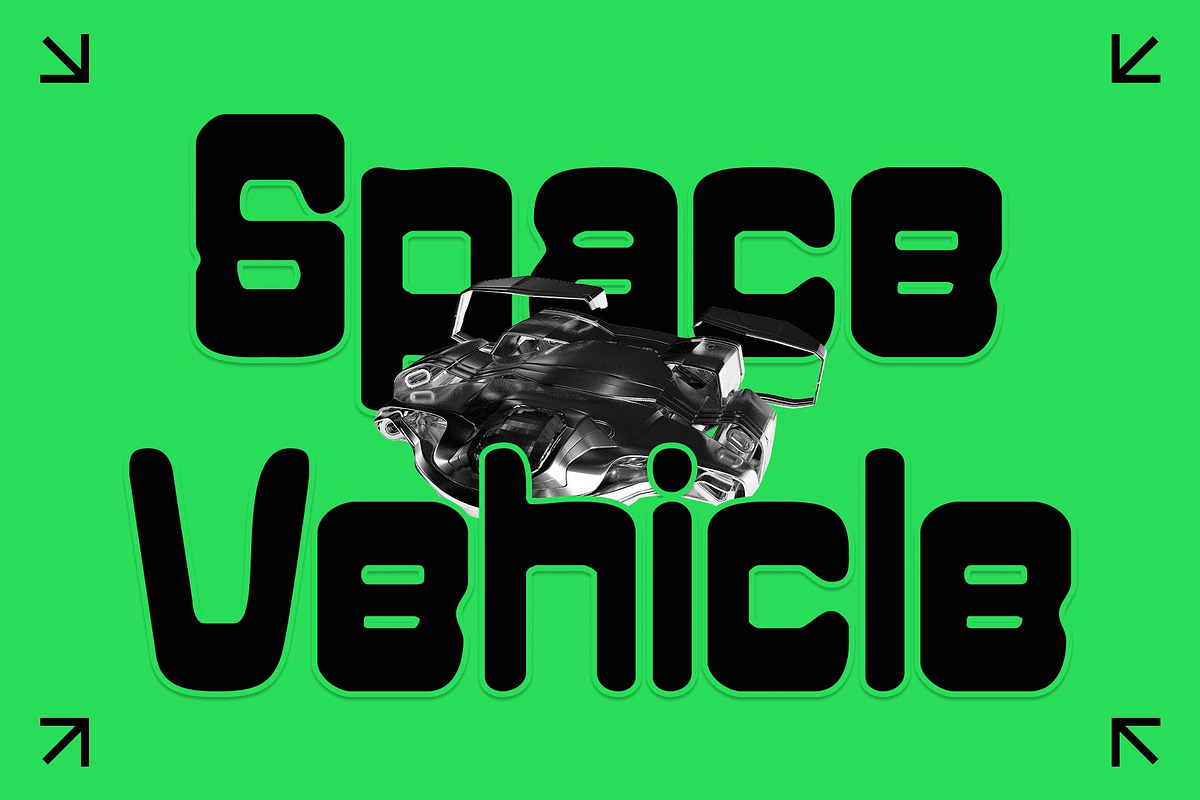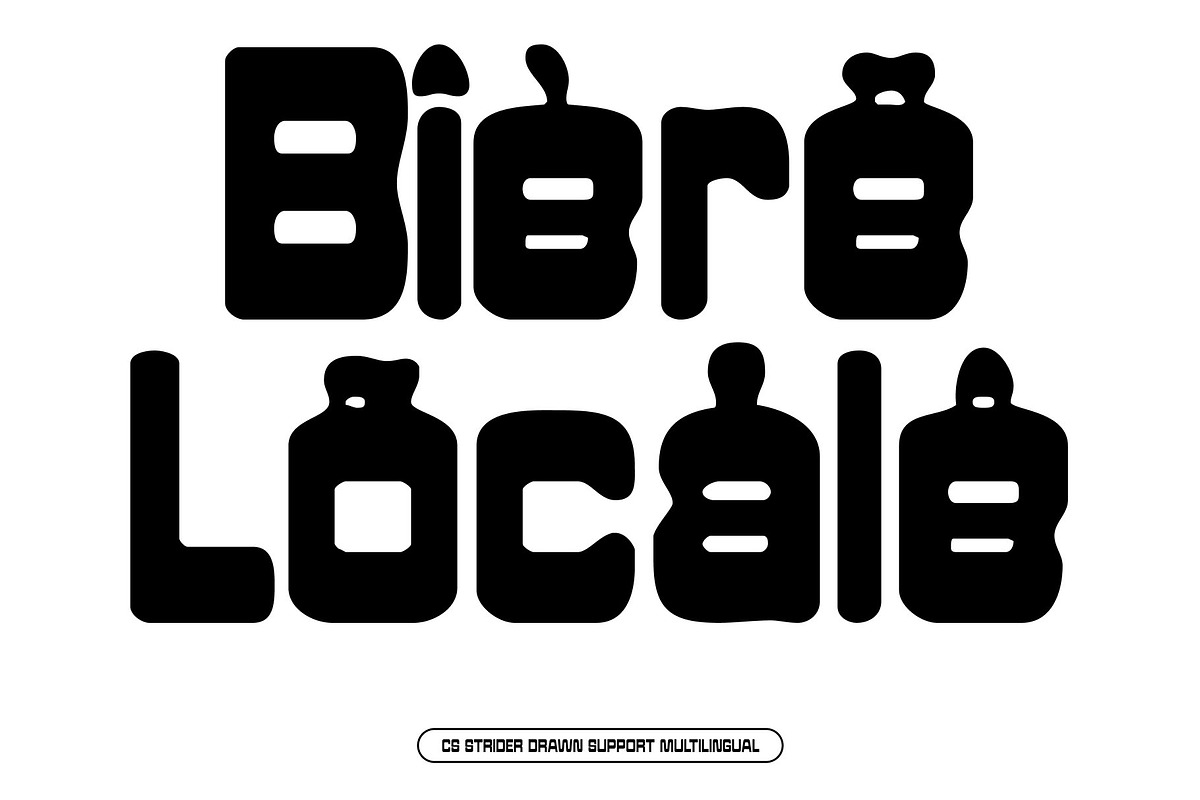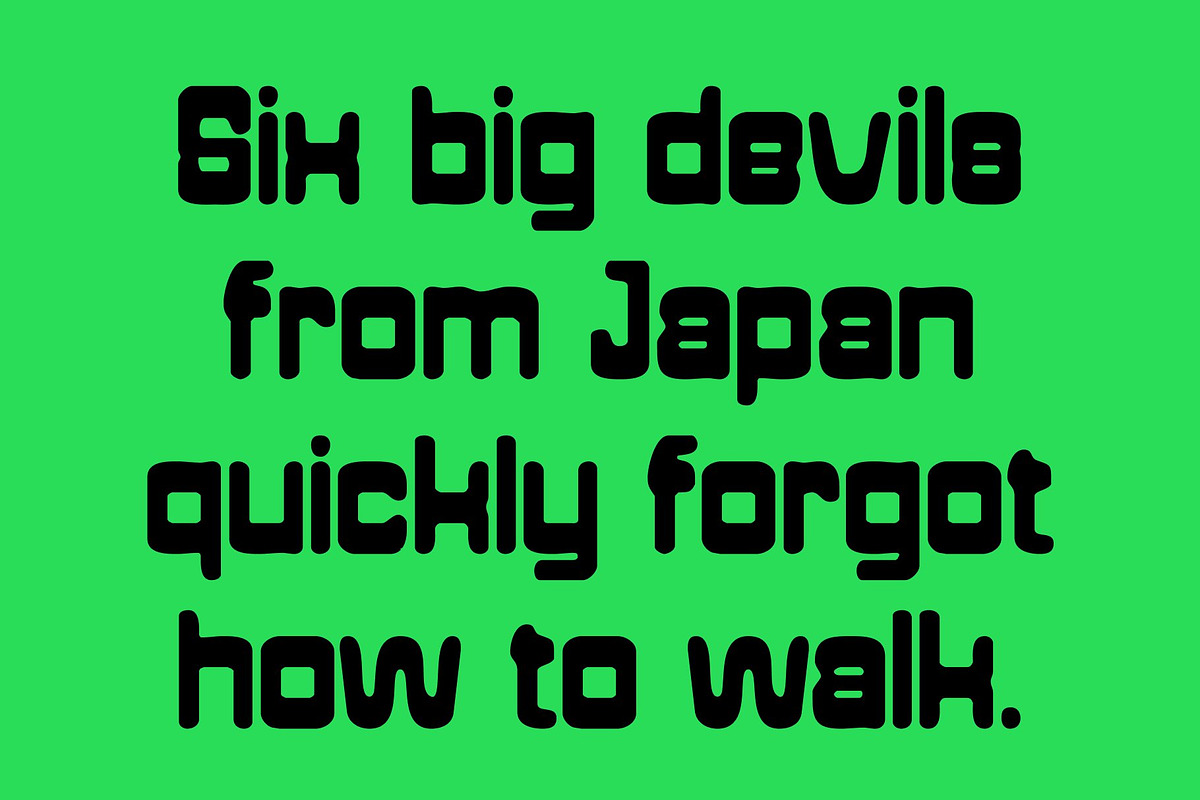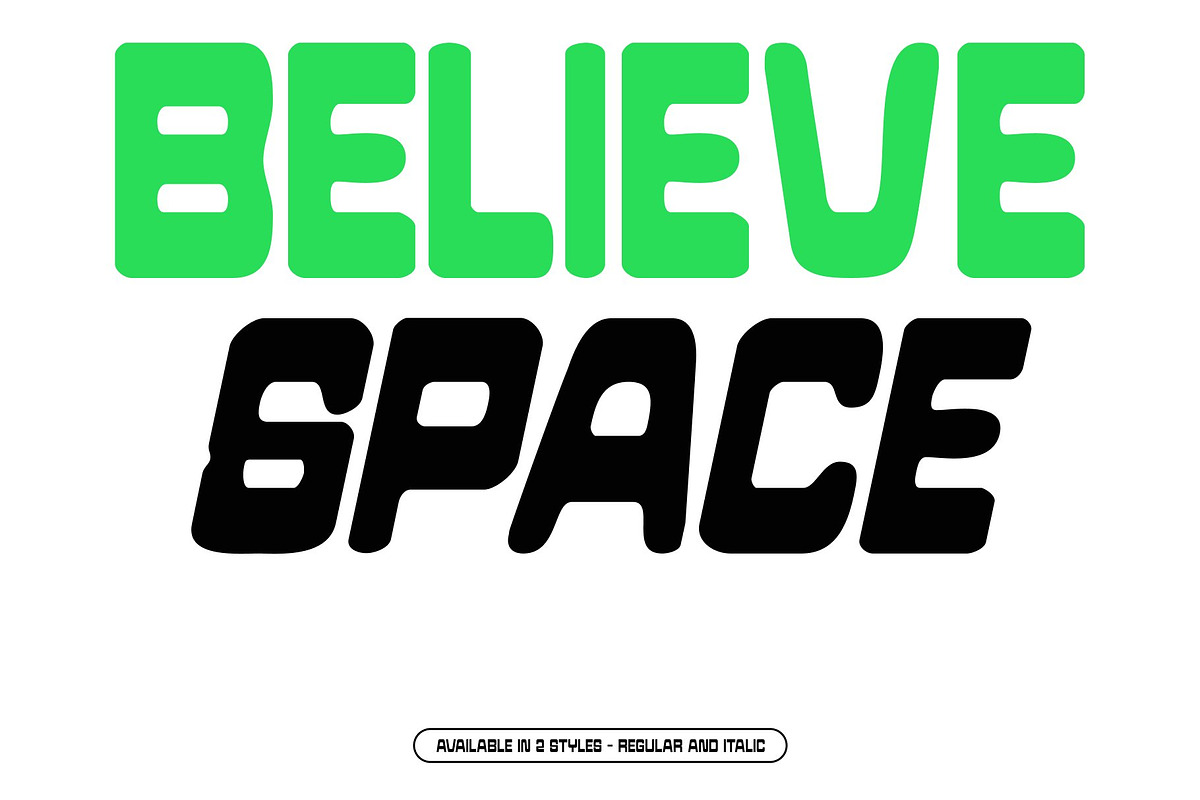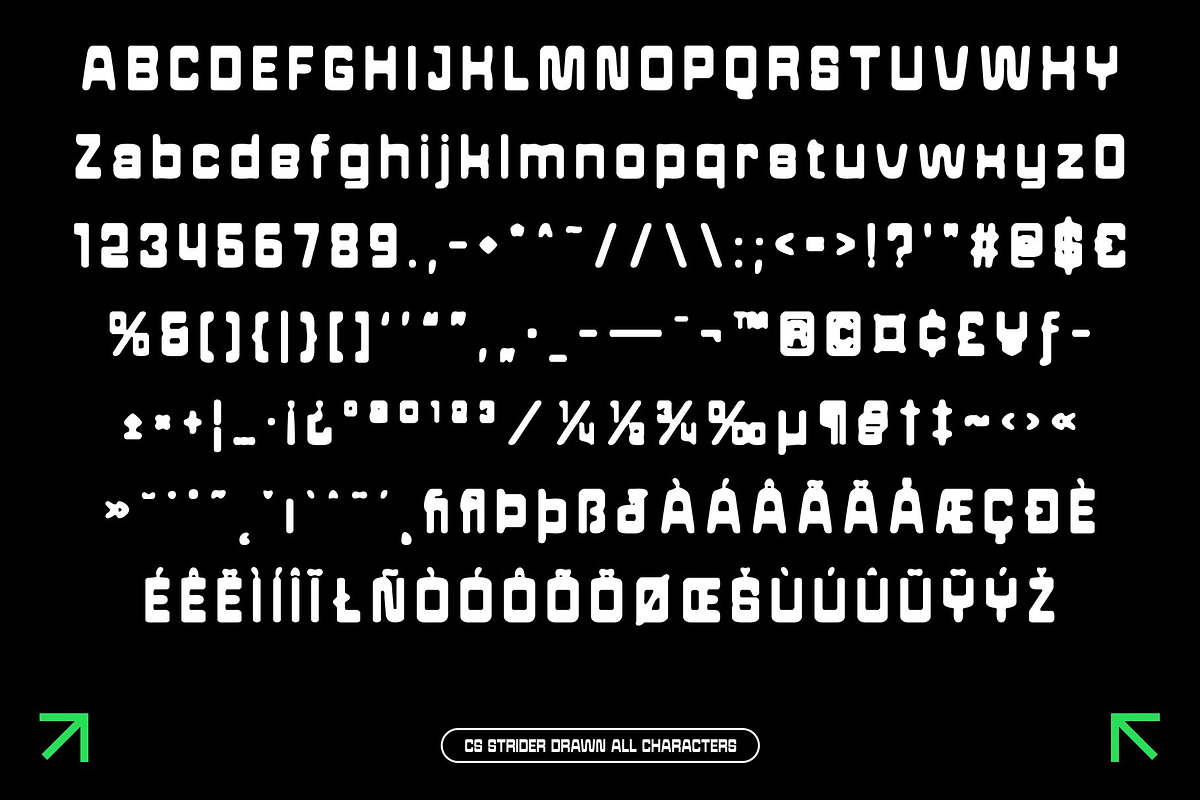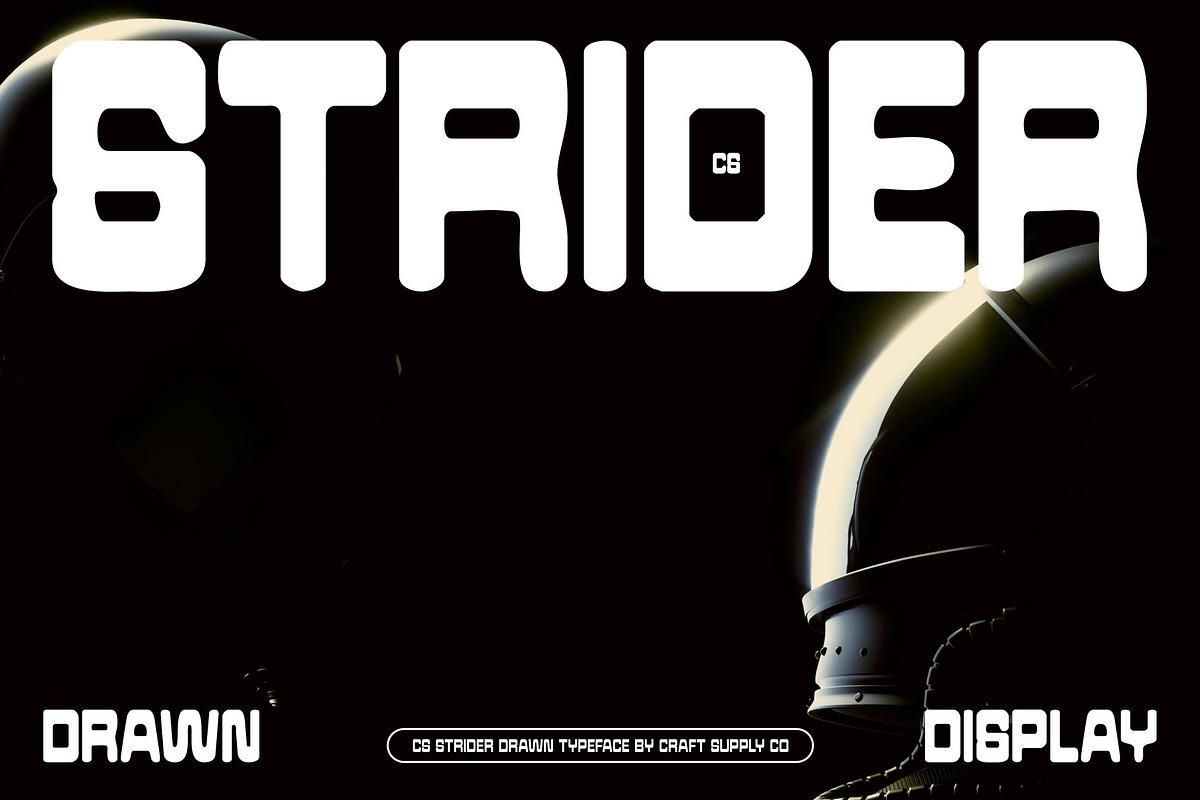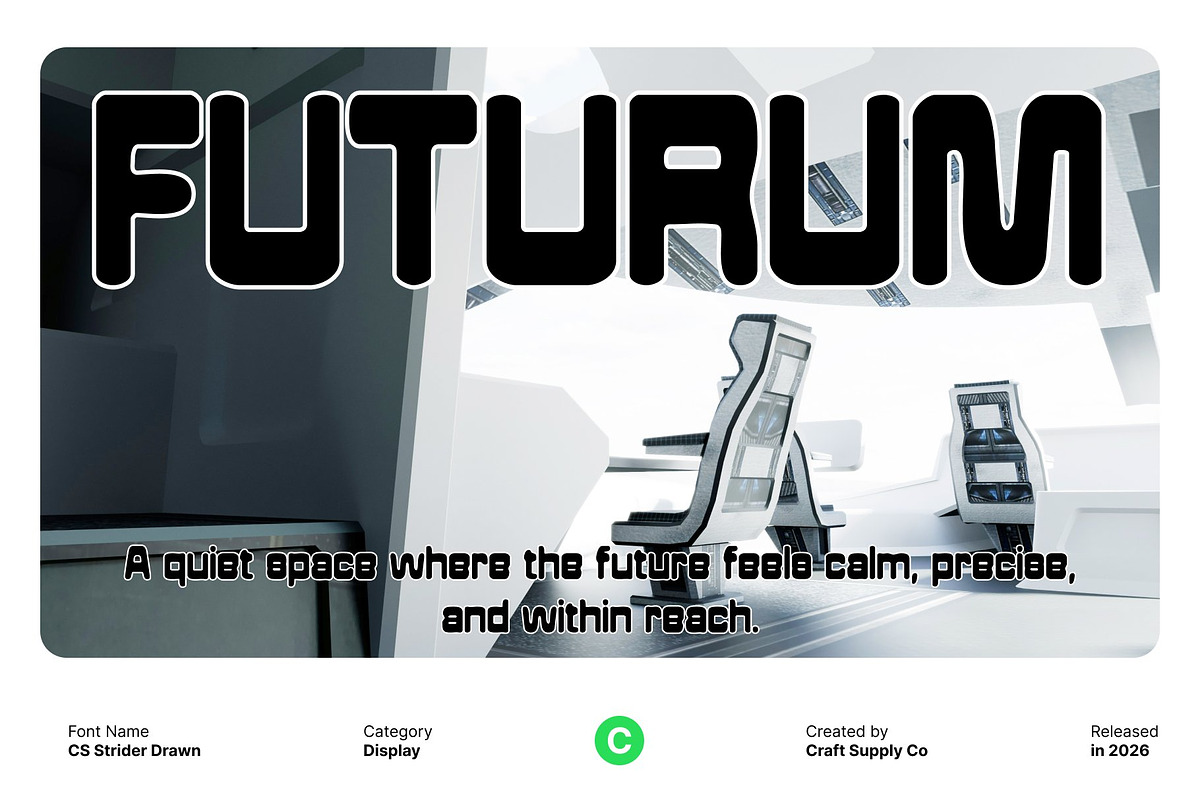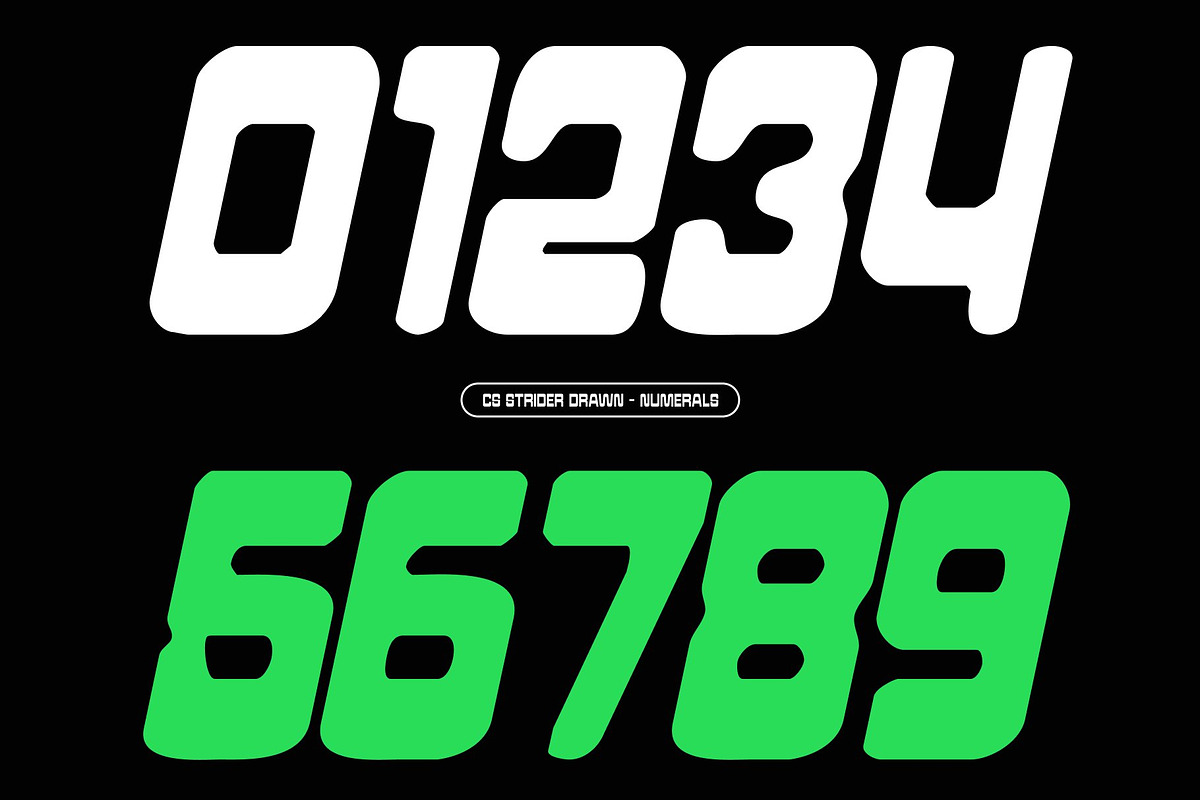
CS Strider Drawn
CS Strider Drawn – Reverse Contrast Display Font Where Retro Meets Hand-Drawn Expression
Bold Reverse Contrast with Striking Character This is a reverse contrast display font that blends vintage influence with modern attitude. By inverting traditional weight distribution, it creates strong visual tension and an unconventional rhythm that immediately grabs attention. The drawn effect adds organic irregularities, giving each letter a unique, expressive presence while reinforcing its bold individuality.
Retro Inspiration with a Contemporary Edge Rooted in classic design references, this font reinterprets retro typography through clean geometry and modular balance. The hand-drawn nuances soften its structure just enough to keep the font feeling alive and current perfect for designs that celebrate nostalgia while pushing toward modern expression.
Distinctive Impact for Branding and Promotion With its confident reverse contrast and handcrafted personality, this font excels in logos, posters, editorial headlines, and promotional materials. It’s ideal for brands and creatives looking to communicate strength, creativity, and a subtle rebellious spirit in their visual identity.
Dynamic and Versatile for Creative Typography Despite its bold appearance, this font remains highly adaptable across different design contexts. From expressive typographic compositions to standout branding systems, it maintains clarity while delivering character and flair. This font offers a confident fusion of retro inspiration, modern innovation, and hand-drawn energy ensuring every design stands out with distinction.
- CS Strider Drawn Regular
- CS Strider Drawn Italic